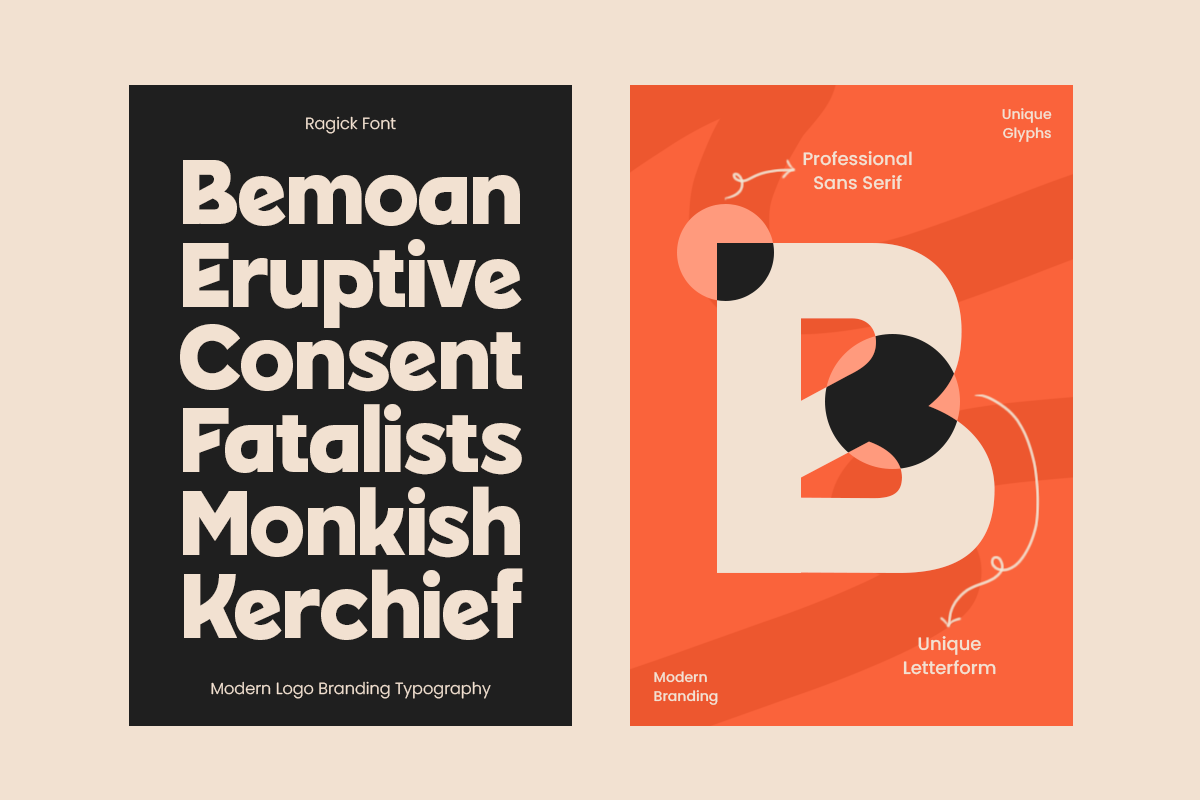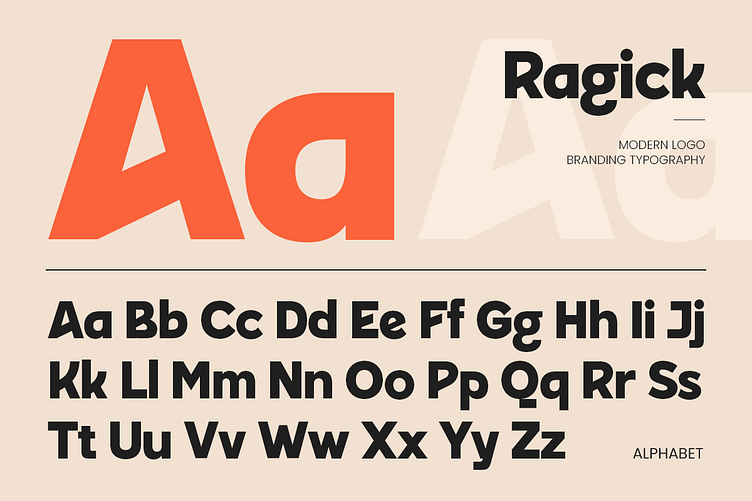
Ragick – Bold Modern Font for Logos That Magnetize Attention ✨
Meet Ragick, a sharp and stylish typeface built to command attention. Designed for strong brand presence, Ragick – Modern Logo Font features clean lines, modern proportions, and bold character shapes that bring confidence to any visual identity.
🧩 The Story Behind Ragick
We designed Ragick for creatives and brands who want a logo font that feels both futuristic and grounded. It’s inspired by modern branding needs—where simplicity meets standout impact. Whether you’re building a tech brand, creative agency, fashion label, or personal logo, Ragick adds edge and elegance with every keystroke.
✨ Why Use Ragick?
✔ Modern & bold style perfect for standout logos
✔ Versatile for branding, packaging, and editorial design
✔ Strong letterforms that work great on both digital and print